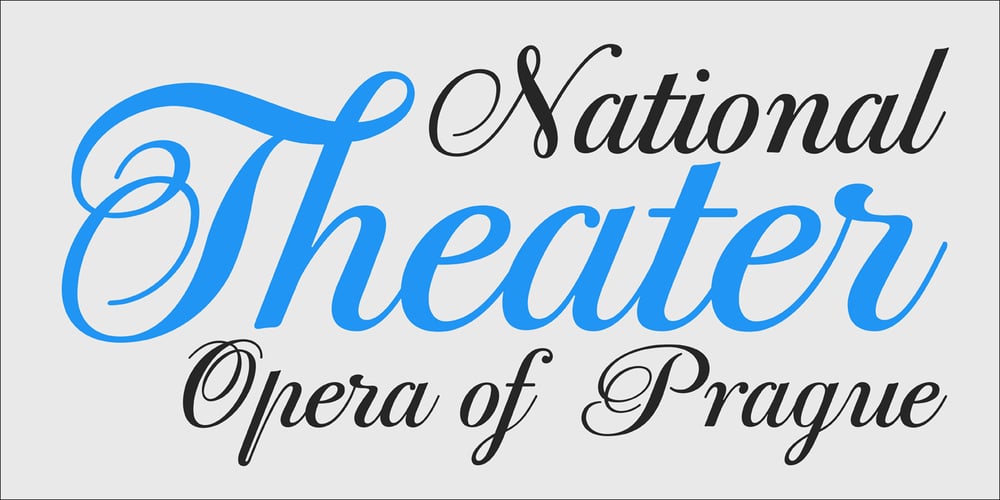
PF Bodoni Script Pro
PF Bodoni Script Pro font
PF Bodoni Script Pro Font Family was designed by Panos Vassiliou and published by Parachute. PF Bodoni Script Pro contains 3 styles and family package options. “Always intrigued by Bodoni’s original work, I was set out—back in 2000—to examine his work and study Manuale Tipografico, one of the greatest specimen books ever printed. Issued in 1818 at Parma, Italy by Bodoni’s widow, the two-volume work shows an impressive array of 142 roman alphabets and some foreign ones such as Greek and Cyrillic. After a careful examination of all characters, I decided to create a typeface based on the distinct script capitals presented in the book. Matching lowercase italics were later selected and designed to complete the series. Since my intention was not to create simply a digital version of Bodoni’s work, this typeface was designed with connected characters and capitals with extra calligraphic elements. The result was released in 2002 and published in our award-winning catalog/book IDEA/Trendsetting Typography vol.1. Later in 2005 we revived a large number of ornaments and borders (credit goes to designer George Lygas). All this work was left behind till recently when it was revisited to create a complete ‘Pro’ family. Several new uppercase and lowercase glyphs were designed in order to create a distinct typeface, which is based on Bodoni but yet it stands out on its own. The new version also takes care of conflicts between neigbouring letters, something that was not included in the first version. Bodoni Script Pro is a 3-weight superfamily. It supports 10 special opentype features including ‘contextual alternates’ as well as support for both Latin and Greek. Each font comes with 725 glyphs including a large number of alternates as well as 144 ornaments. Furthermore, when you purchase the whole package you get a bonus font which contains 120 frame parts. These parts, when put together, create some truly amazing borders”. -Panos Vassiliou